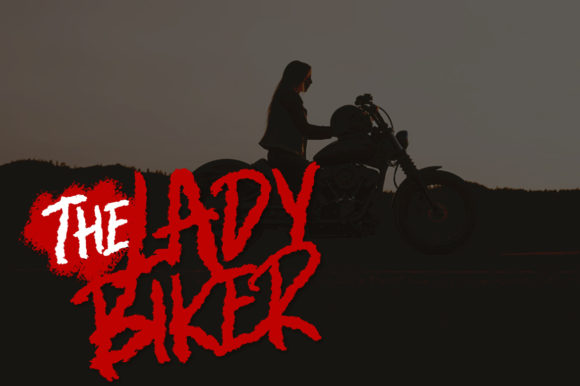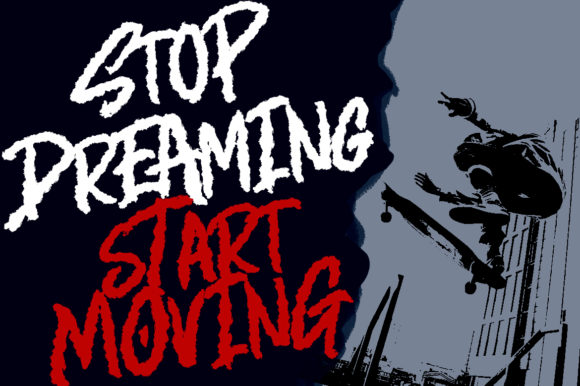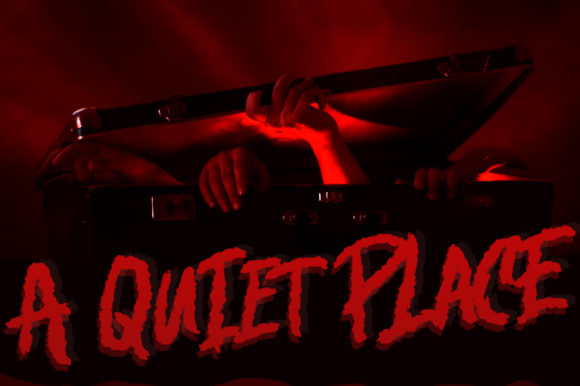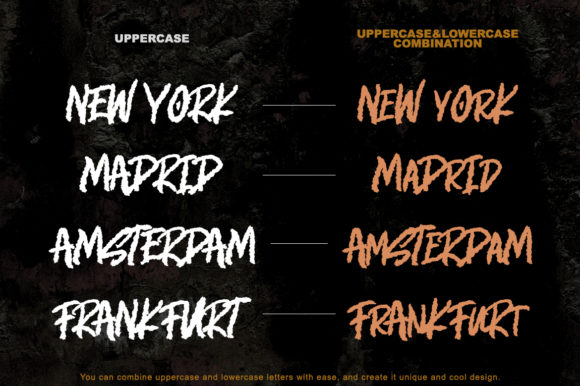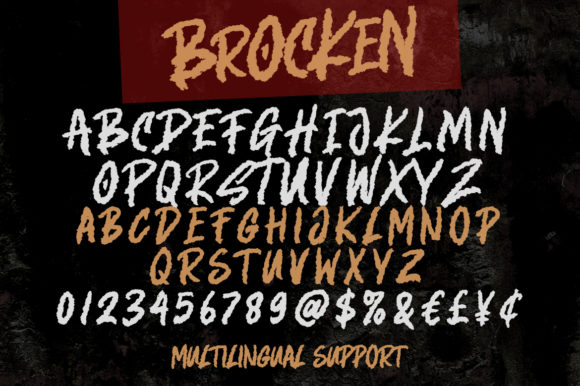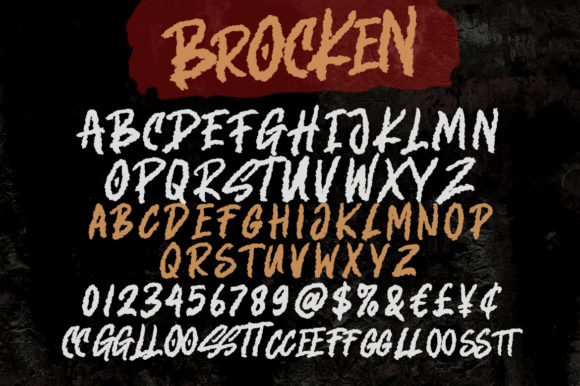
Introduction to Brocken Font
Brocken is brushed all caps display font.
Whether itโs for web, print, moving images or anything else โ Brocken will look spectacular .
Key Features of Brocken Font
Why Choose Brocken Font?
Brocken Font offers exceptional quality and versatility, making it a valuable addition to your design toolkit. Whether you’re creating for personal projects or commercial use, Brocken Font delivers professional results.